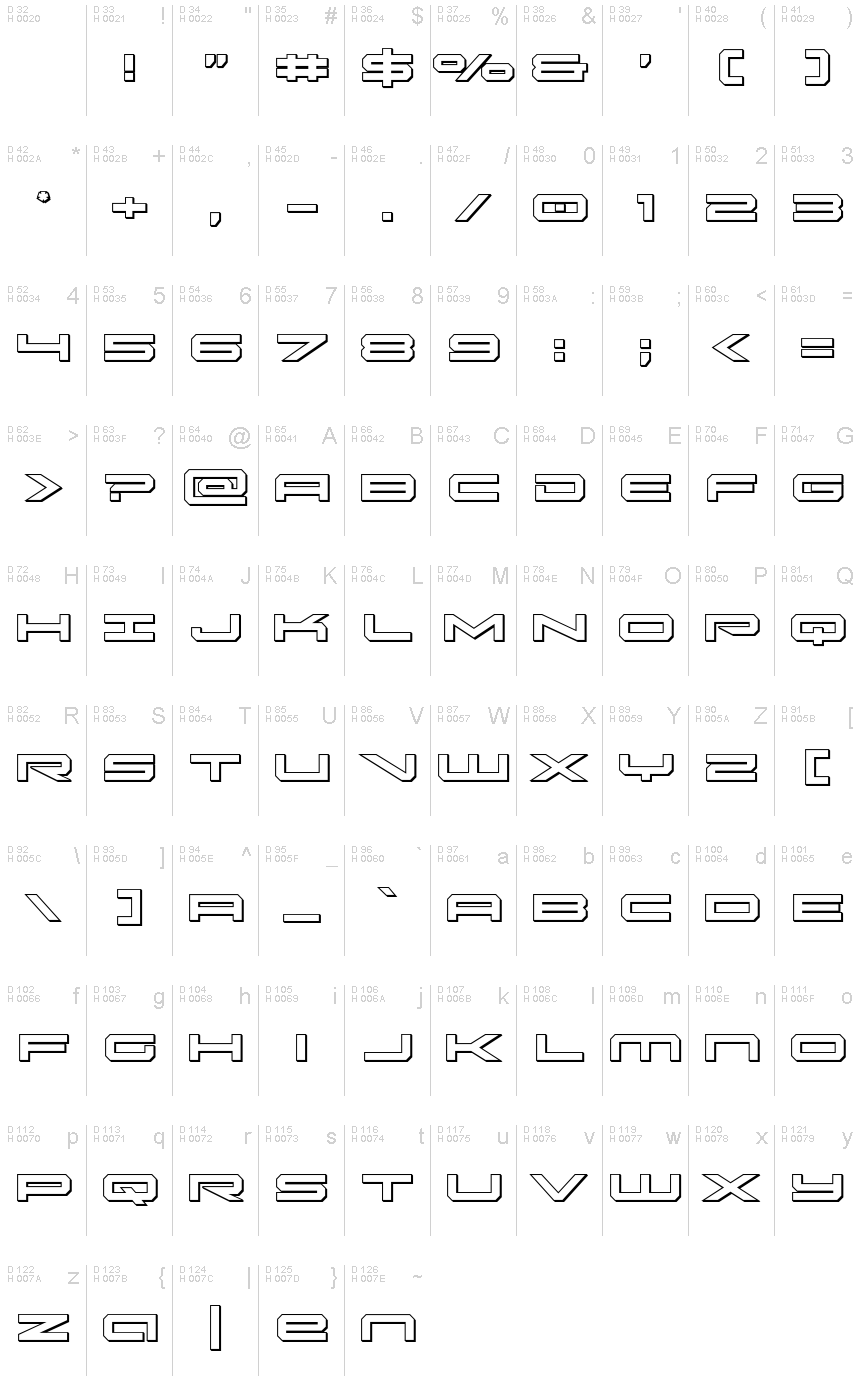
Oramac 3D
Oramac 3D is a striking display font that exudes a futuristic, three-dimensional aesthetic. Designed by Daniel Zadorozny, this expanded typeface boasts a captivating blend of geometric shapes and sleek lines, creating a bold and dynamic visual impact. The font's distinctive 3D effect adds depth and dimension, making it an eye-catching choice for headings, logos, and display text.
Oramac 3D's versatility lends itself well to a variety of design applications, from sci-fi-inspired branding to modern, tech-forward layouts. Its expansive width and distinctive character shapes make it an excellent option for attention-grabbing titles, while its futuristic flair can elevate digital interfaces, packaging designs, and promotional materials. Whether used as a standalone element or paired with complementary typography, Oramac 3D promises to leave a lasting impression.